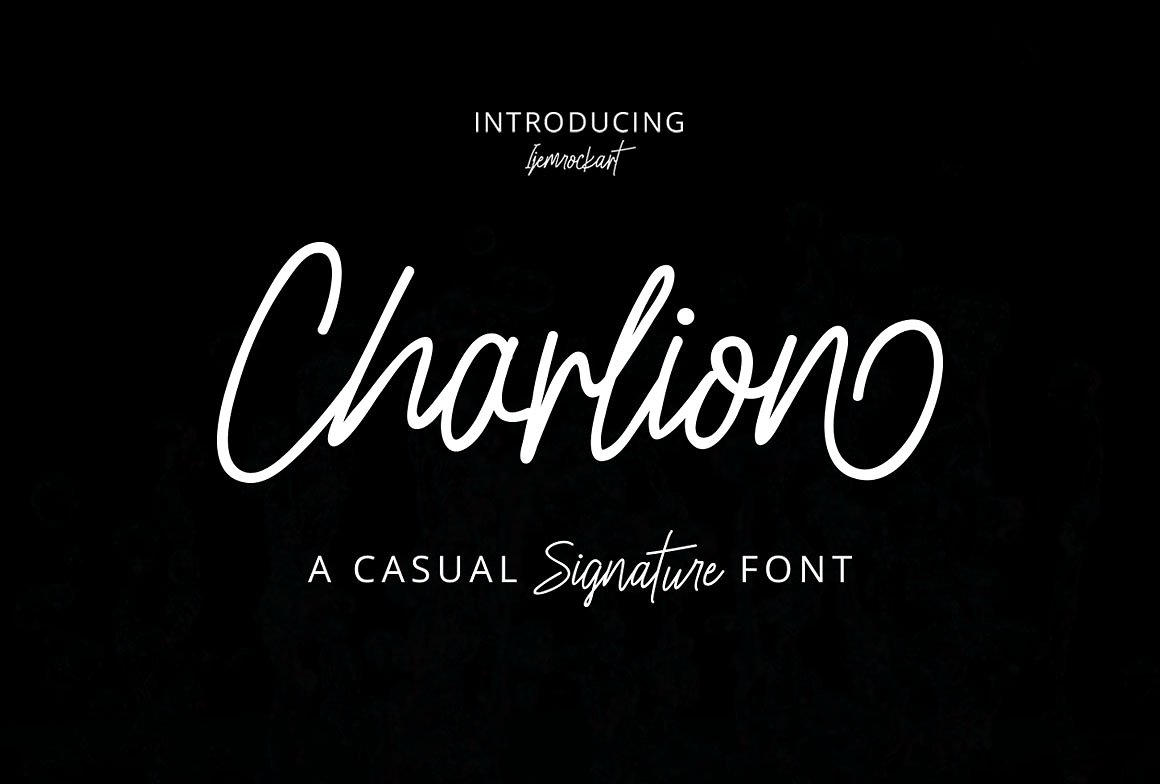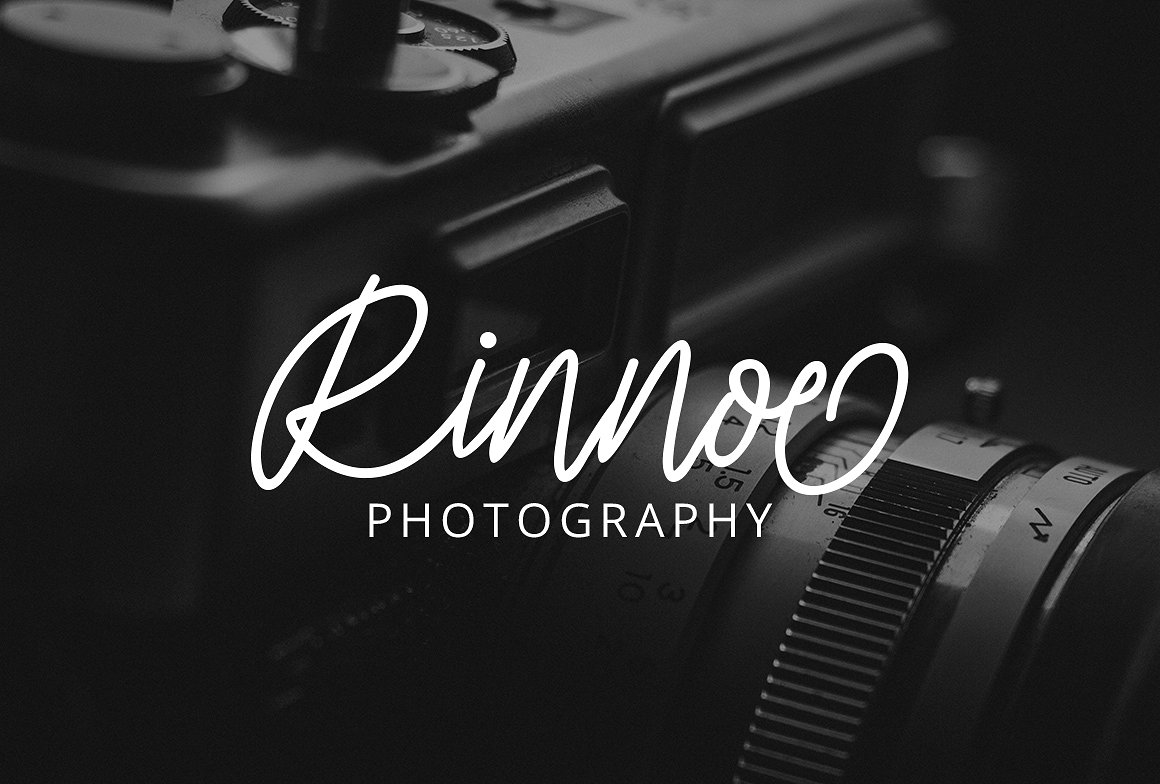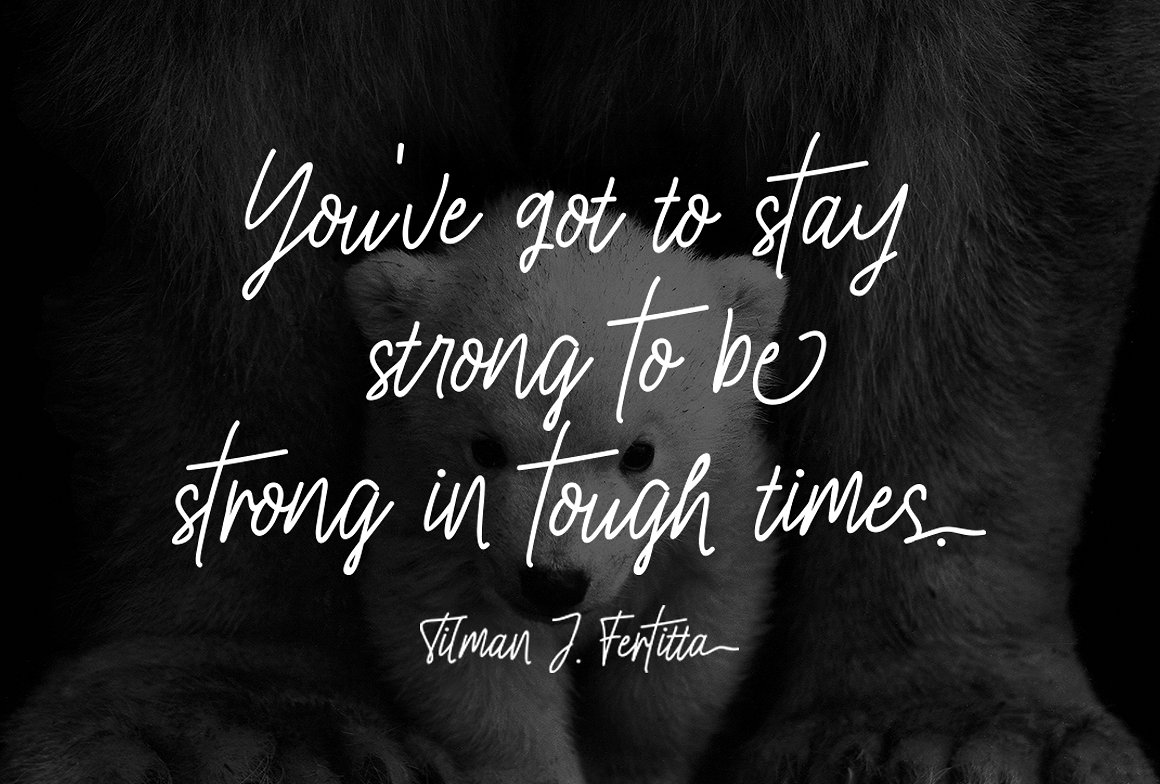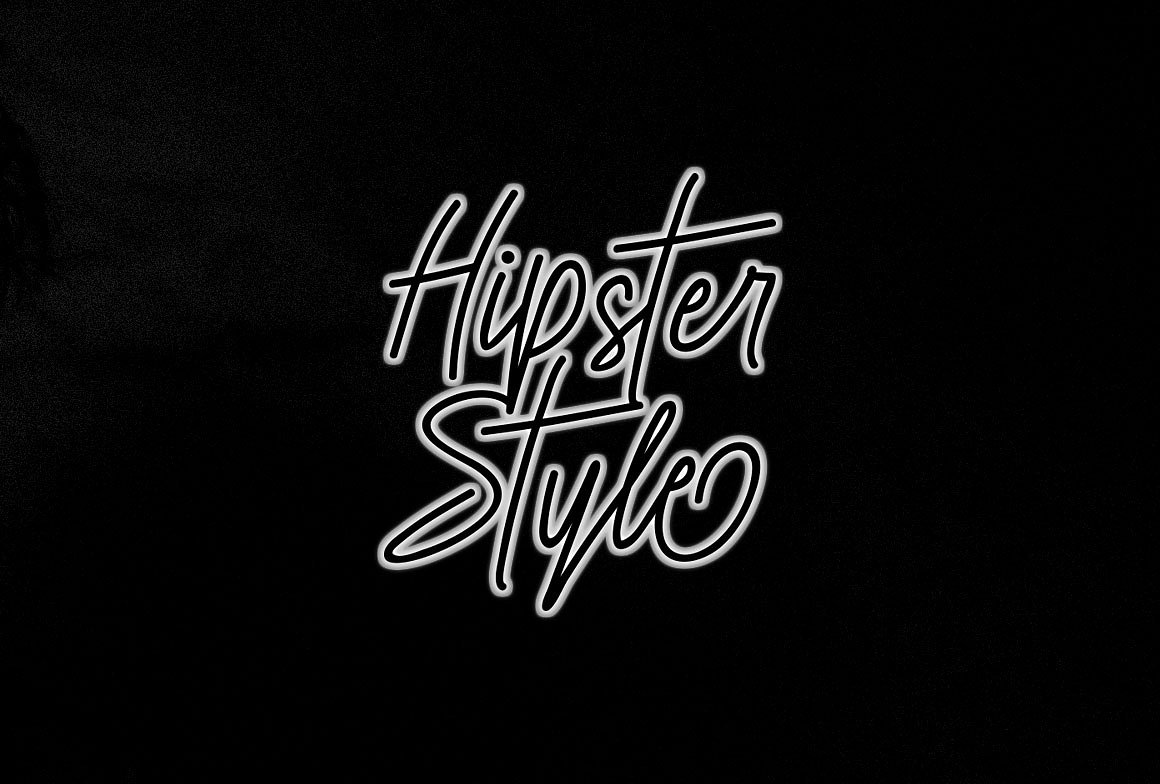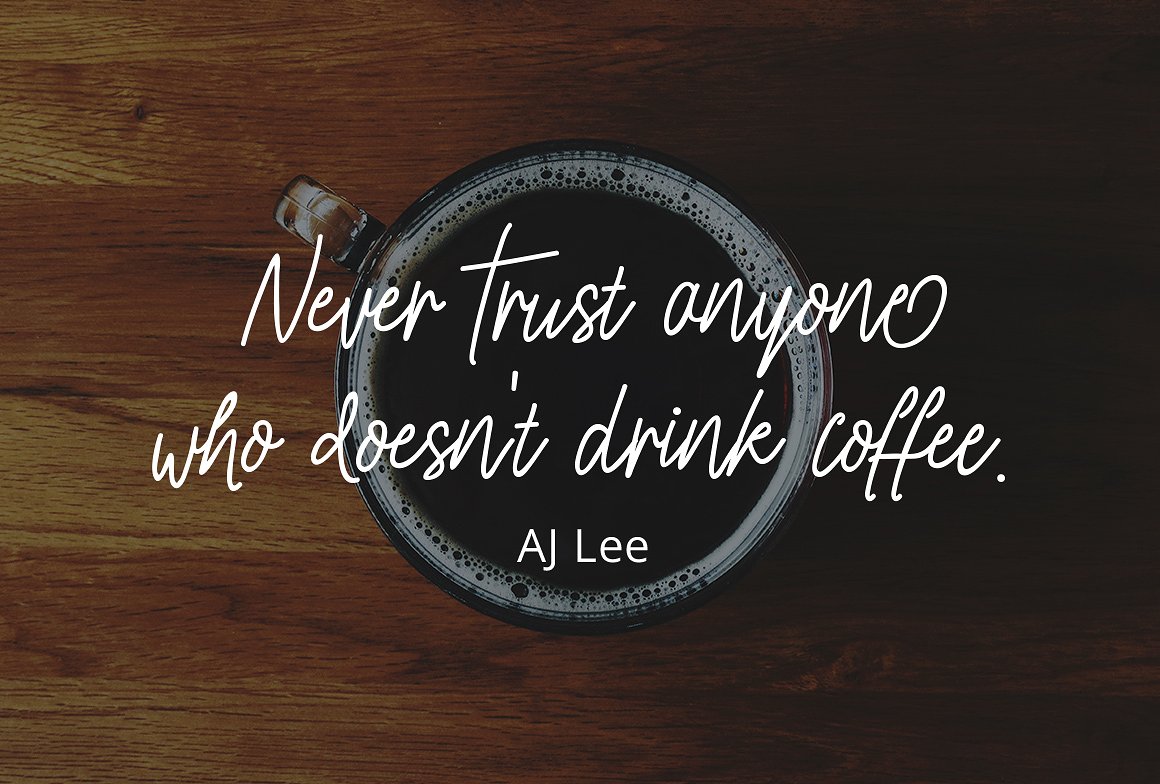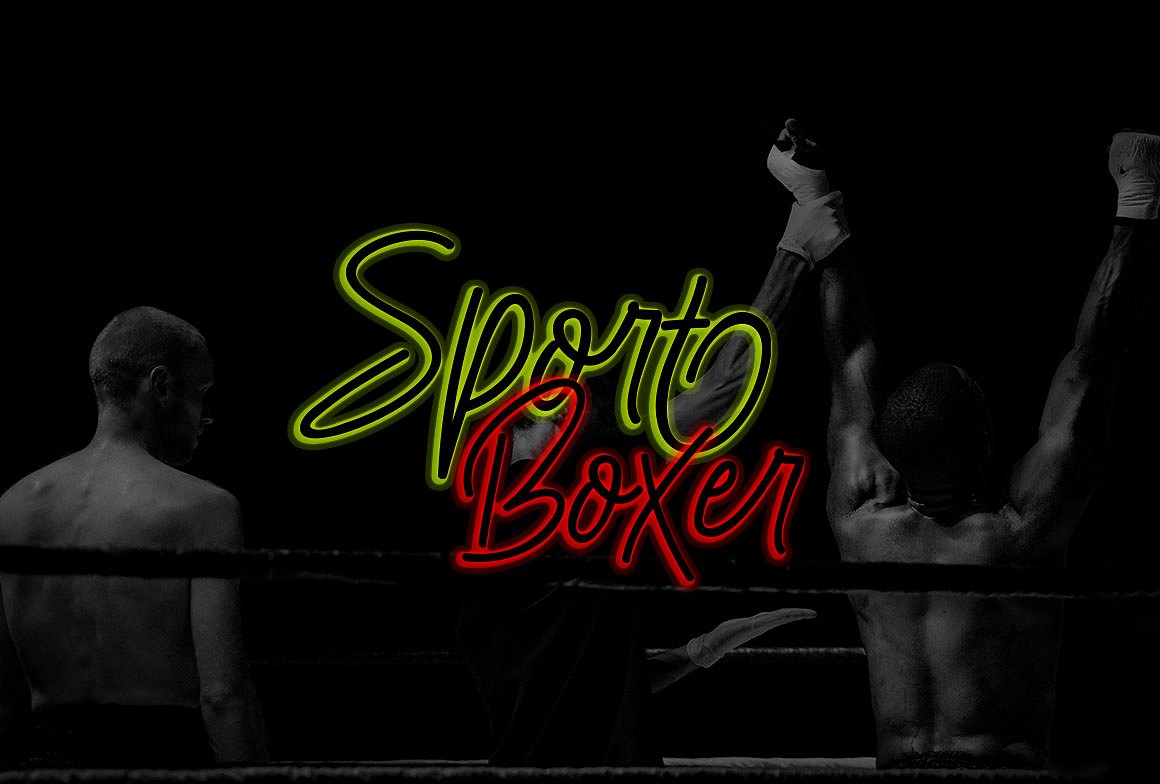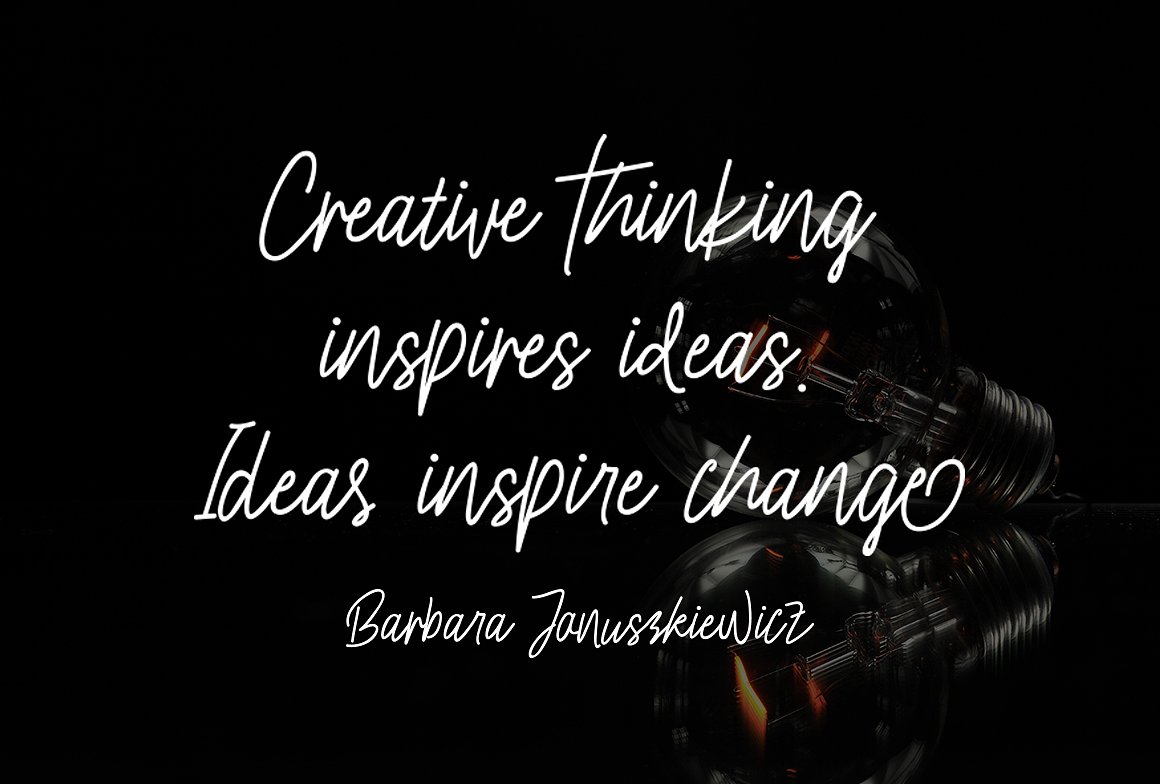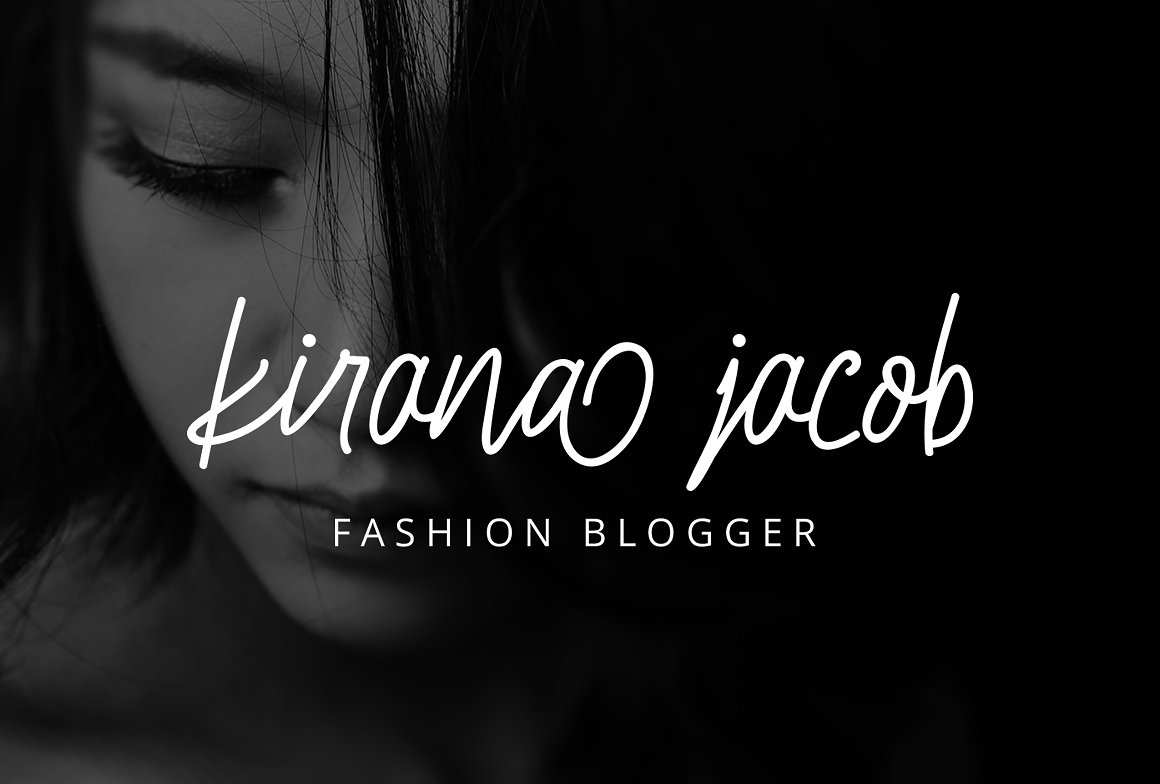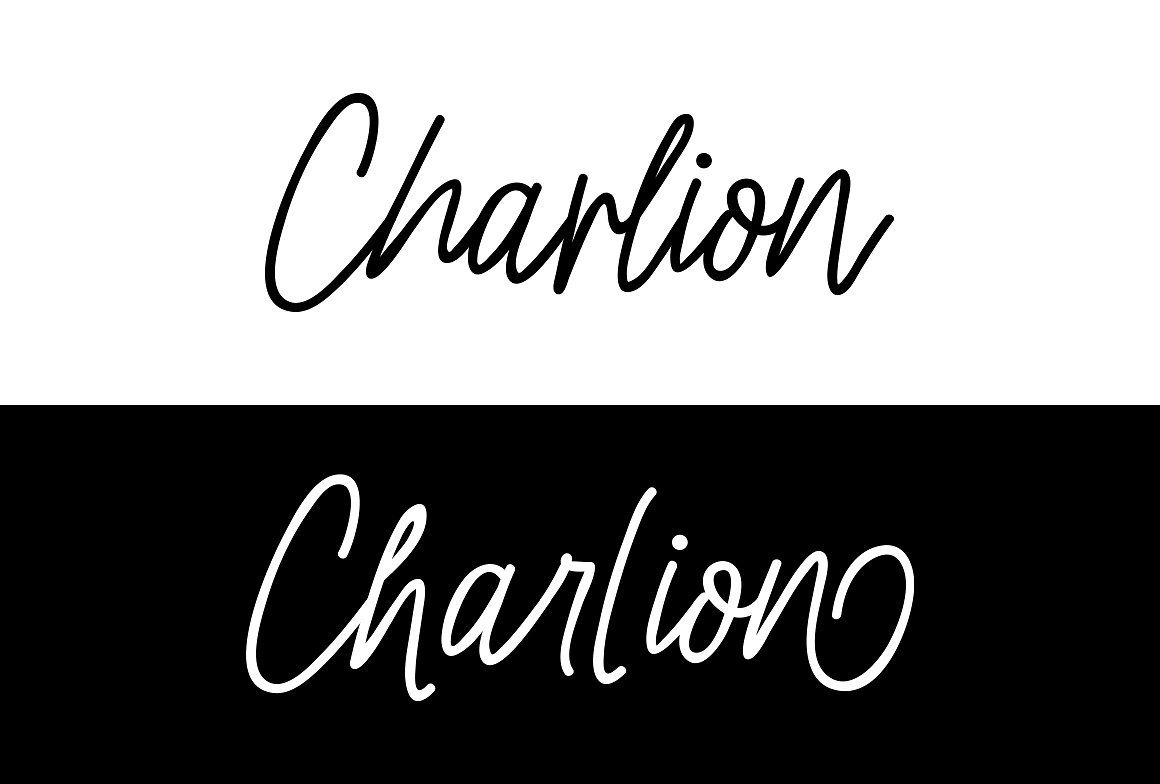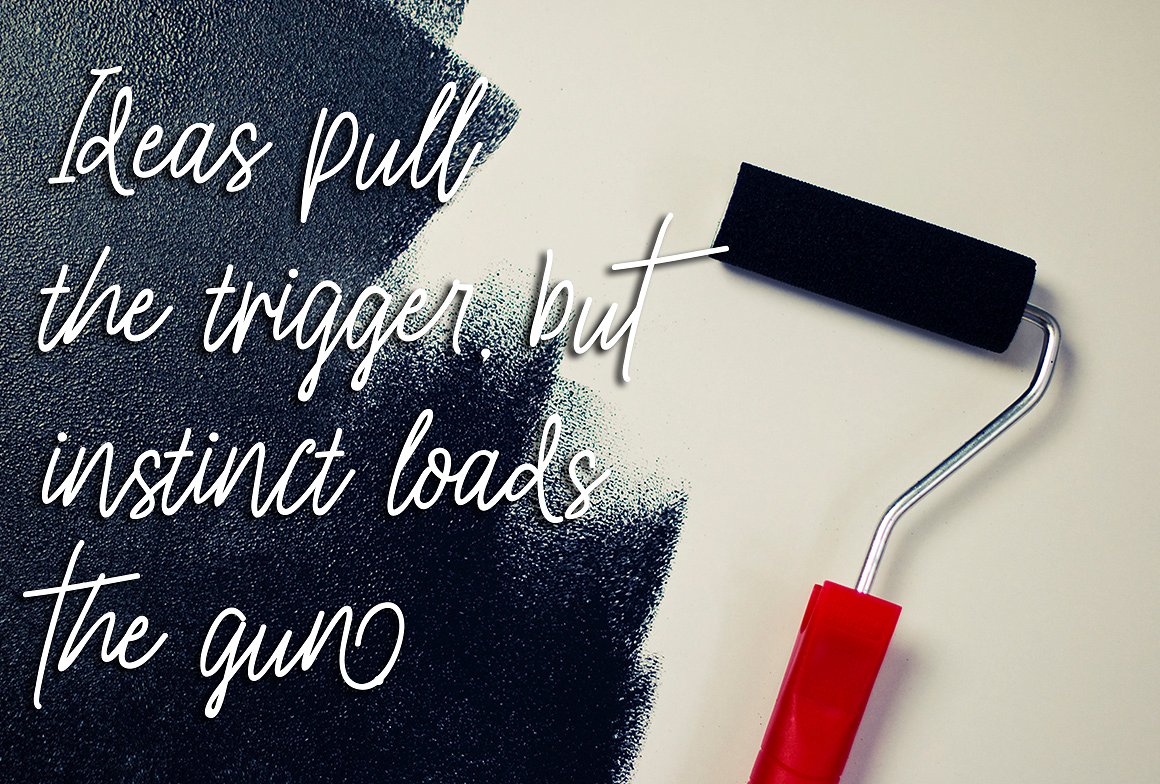
HomeScript FontsCharlion Script Font Script Fonts Charlion Script Font FacebookXPinterestWhatsApp Charlion Script Font Poster 2 Charlion Script Font Poster 3 Charlion Script Font Poster 4 Charlion Script Font Poster 5 Charlion Script Font Poster 6 Charlion Script Font Poster 7 Charlion Script Font Poster 8 Charlion Script Font Poster 9 Charlion Script Font Poster 10 About Charlion Script Font Charlion, a casual signature script that comes in 2 individual styles: Script & Slant Script DOWNLOAD NOW People also explored Derive Font Cleo Nita Font Rellata Font Blossom Script Font Venus Plant Font Genora Font Rotherdam Signature Font Hibiscus Font Marsaili 463 0 TagsCharlion Script Font Previous articleBarbara FontNext articleBeauty Font LEAVE A REPLY Cancel reply Comment: Please enter your comment! Name:* Please enter your name here Email:* You have entered an incorrect email address! Please enter your email address here Website: Save my name, email, and website in this browser for the next time I comment. Personal Use Free Osaka Personal Use Free Read more about this font Amillina Monogram Personal Use Free Read more about this font Abberancy Personal Use Free Read more about this font Glowing Personal Use Free Read more about this font BLOG To increase your work productivity, choose the most readable fonts. In today's fast-paced work environment, where digital communication and information consumption are integral to our daily routines, the choice of fonts can significantly impact... Elegant Wedding Invitation Fonts – Handwritten & Script Fonts How to Cut Any Font on Cricut: Convert a Font to SVG (Free) Modern Sans-Serif Fonts That Brands Love in 2025